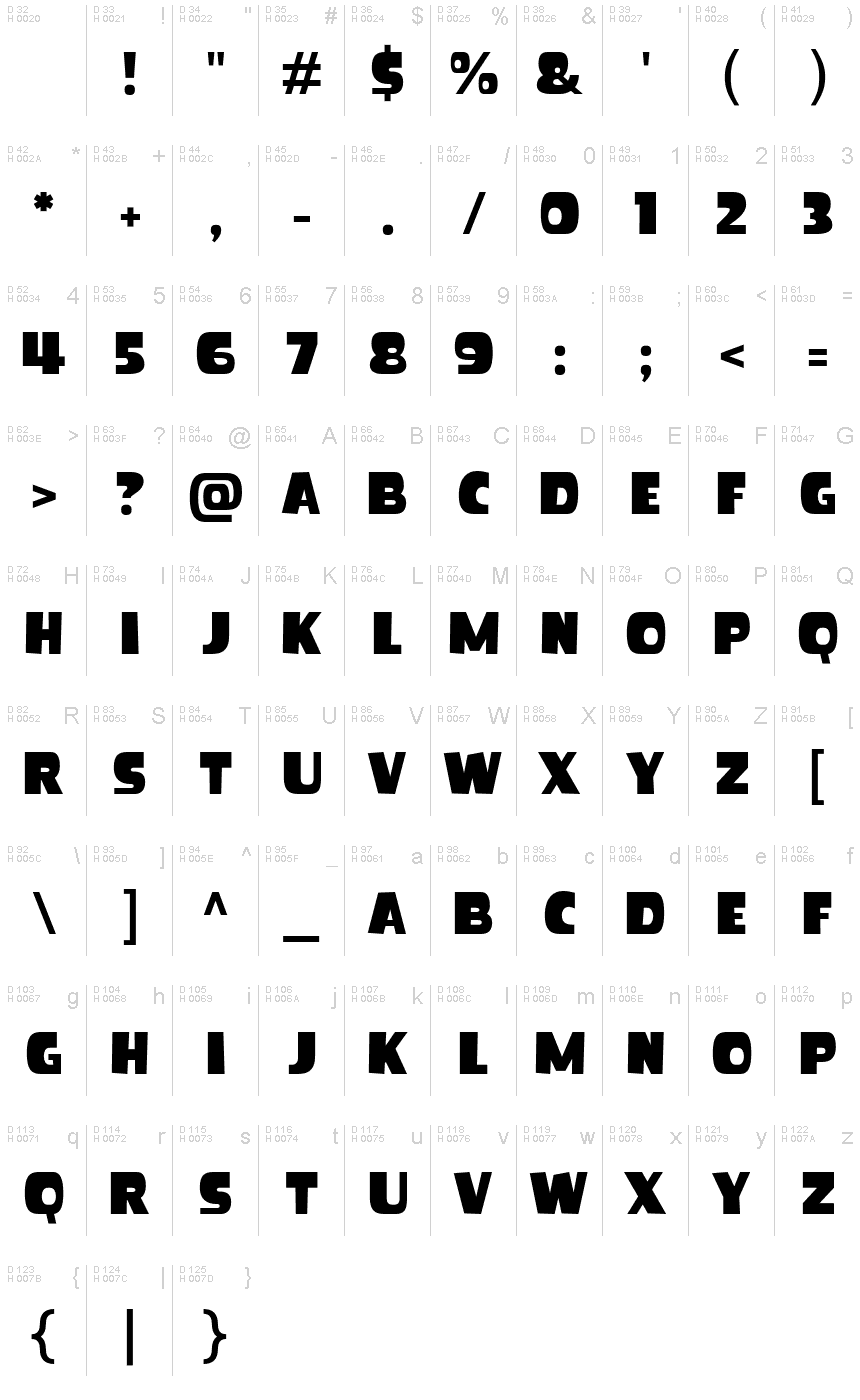
Get ready to add some fun and playfulness to your next project with the Ice Egg font! Expertly crafted by Faqih Fawaji, this extra-bold display typeface is perfect for creating eye-catching headlines, logos or titles that demand attention. With its unique cartoon style, the Ice Egg font is versatile enough to be used for a variety of projects such as children's books, packaging designs or even website headers. Whether you're looking to create a bold and playful brand identity or simply add a touch of whimsy to your design work, the Ice Egg font is just what you need!